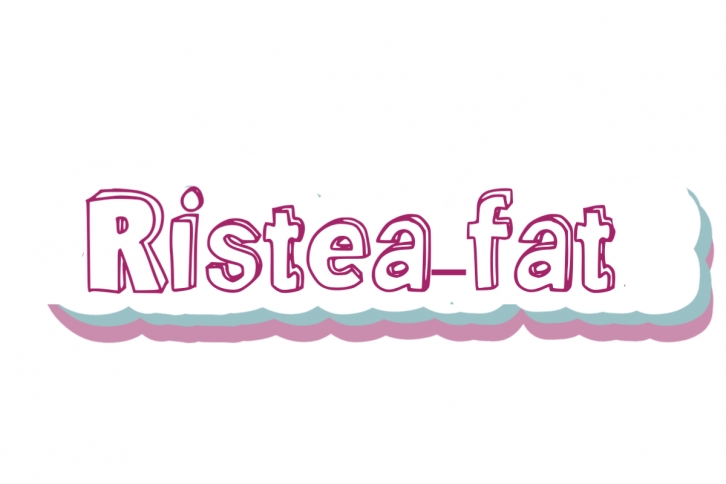
Ristea Fat is a whimsical, chunky and fun display font. Whether you are using it for cartoon-related designs, children games, quotes, titles, brand names, book covers, posters, or just any creation that requires a touch of joy, this font is a great choice.